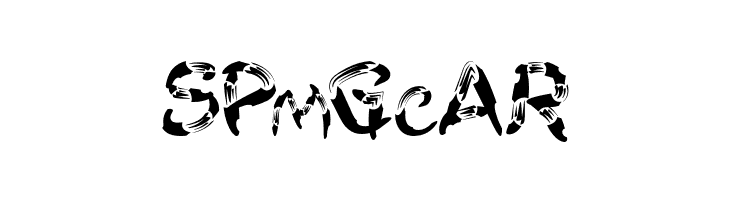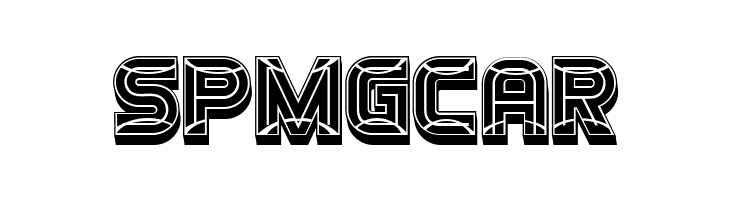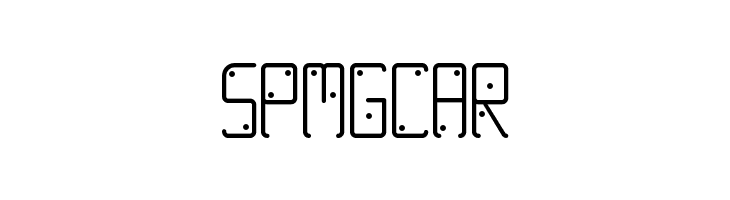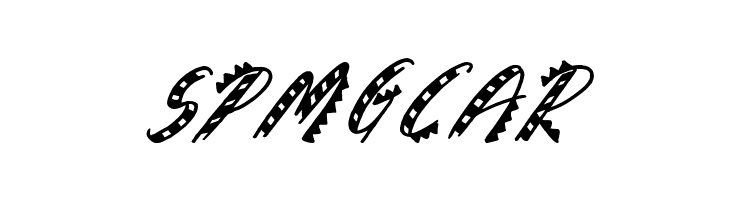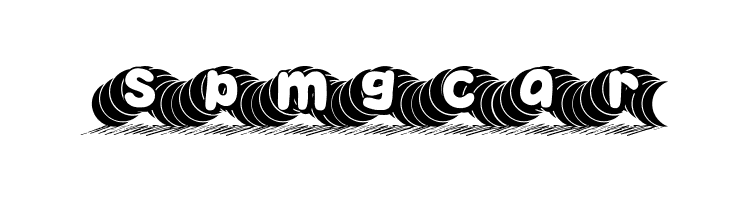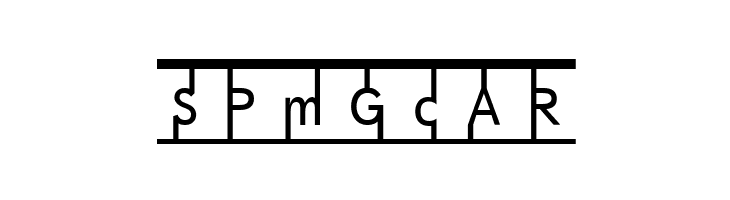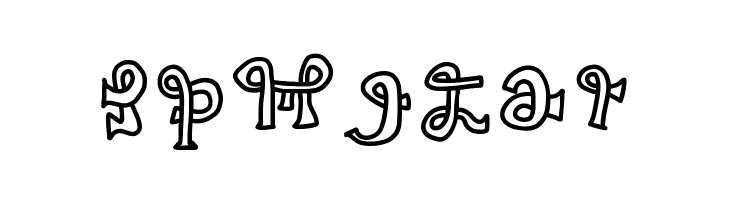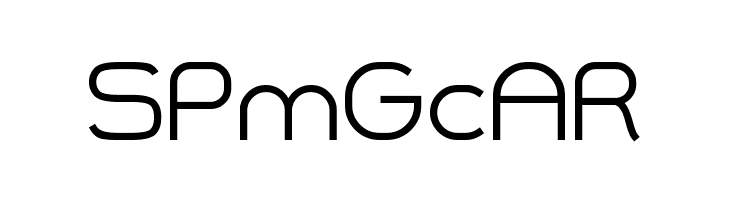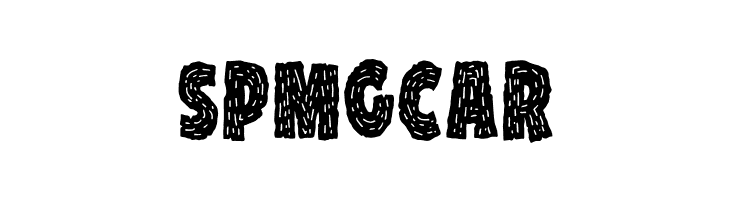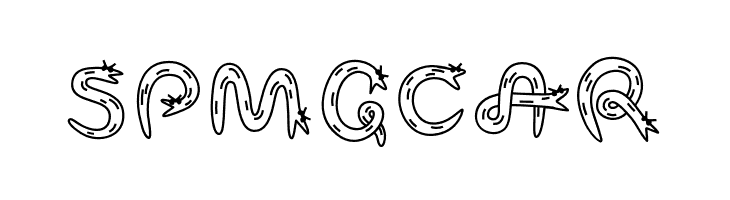
( Fonts by Zkhai Creative )
A bold, brush-stroke font with dynamic and artistic flair.
A bold, geometric font with a three-dimensional, retro-inspired design.
( Fonts by Pizzadude )
A bold, hand-drawn font with a playful, textured appearance.
A playful, snake-themed decorative font with bold, rounded letters.
( Fonts by Calligraphy Fonts )
A playful, tech-inspired font with bold, rounded lines and geometric structure.
( Fonts by Jonathan S. Harris )
A bold, jagged font with a playful, crocodile-inspired design.
( Fonts by Haley Fiege )
A playful, snake-themed decorative font with bold, intricate characters.